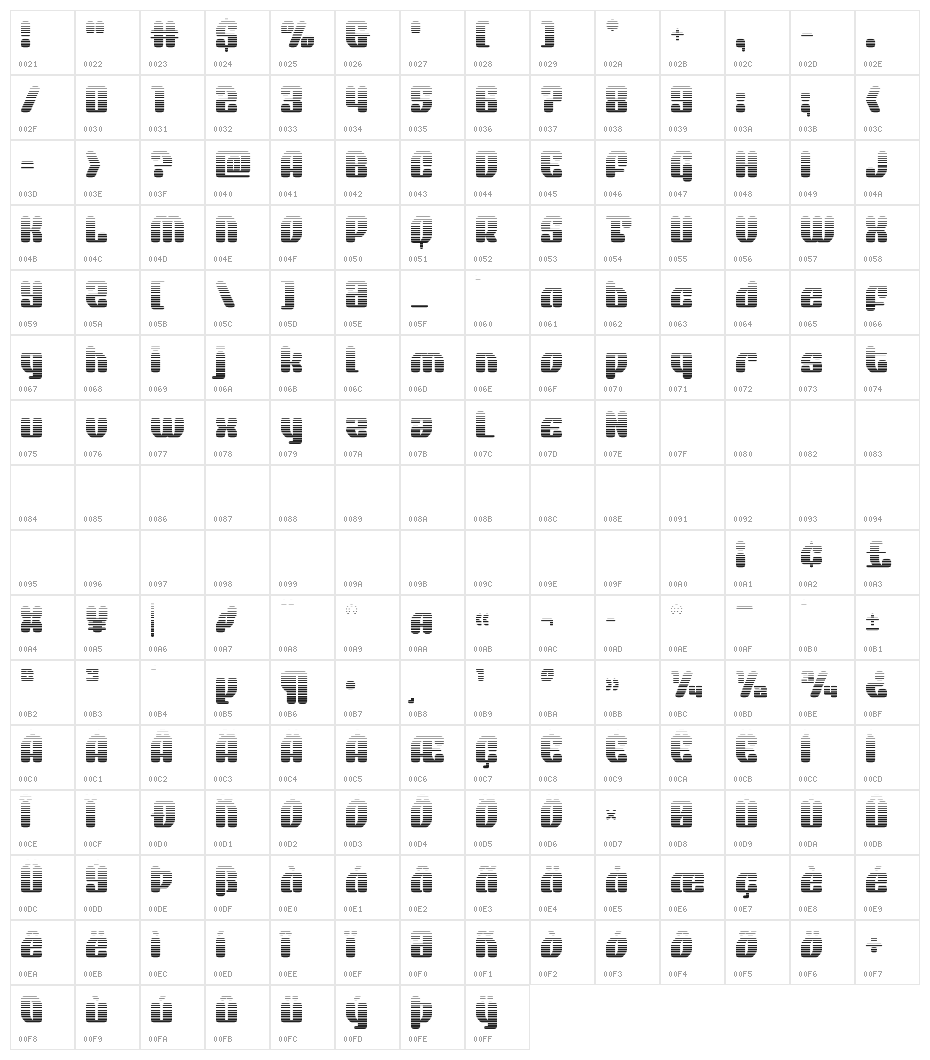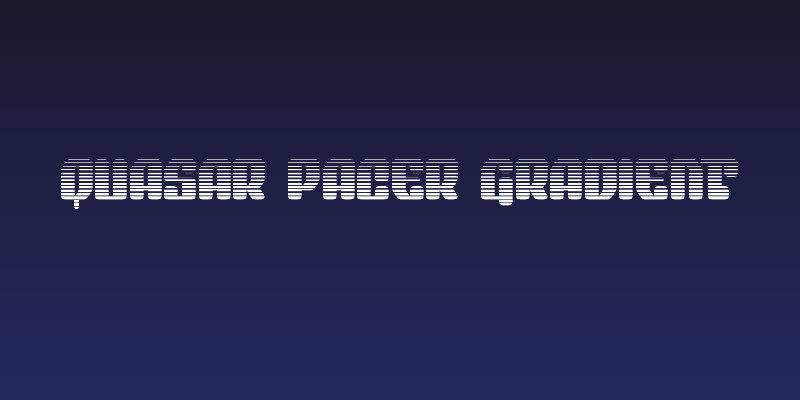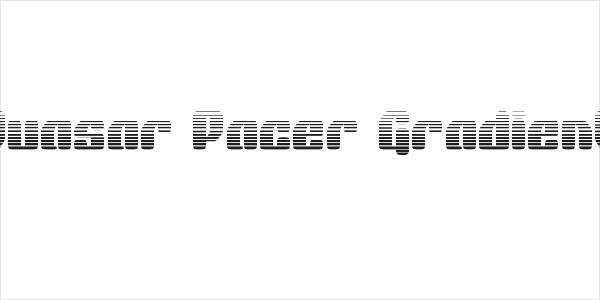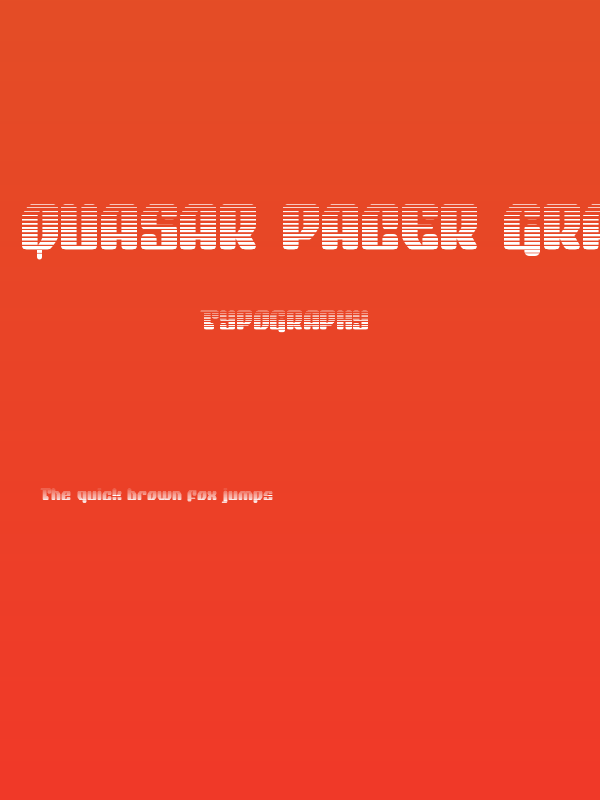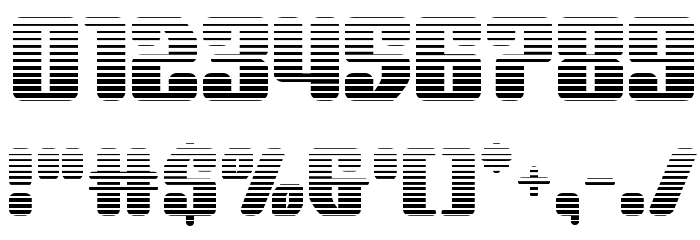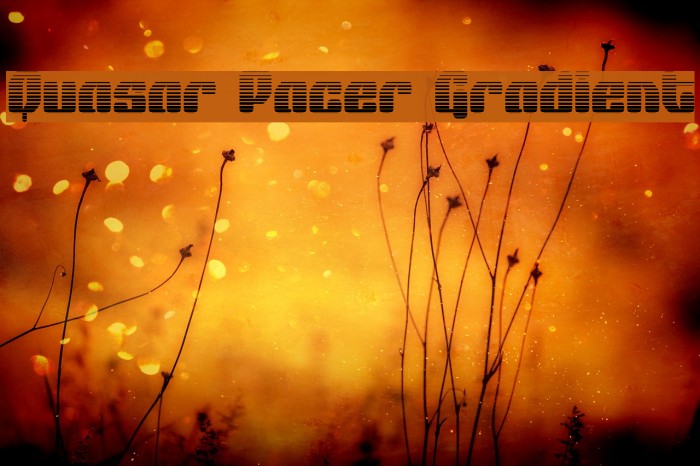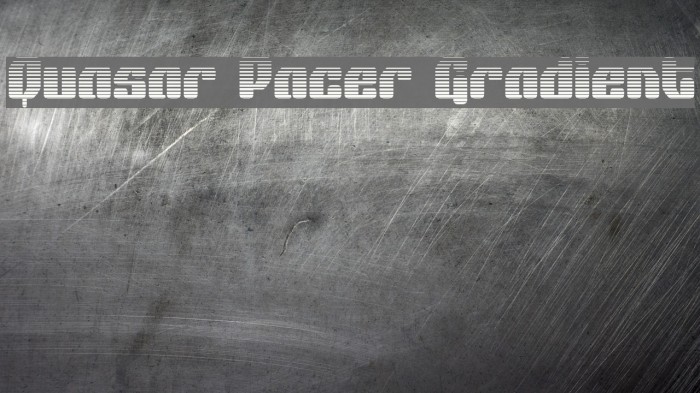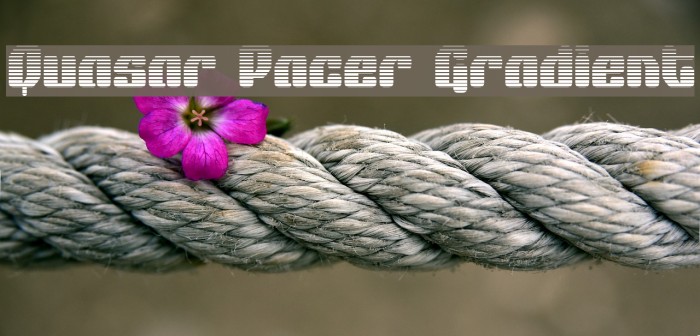
Quasar Pacer Gradient Font
Quasar Pacer Gradient Description
This font features a bold, futuristic design with a unique gradient effect created by horizontal lines running through each character. The letters are wide and have a strong presence, making them ideal for attention-grabbing headlines. The uppercase and lowercase letters maintain a consistent style, with rounded edges and a geometric structure. Numbers and special characters follow the same design principles, ensuring uniformity across all elements. The font's distinct style is both modern and retro, reminiscent of digital displays or sci-fi themes.
| Overall Style | Futuristic, Retro |
| Proposed Projects | Ideal for sci-fi themed posters, video game titles, technology branding, and futuristic event flyers. |